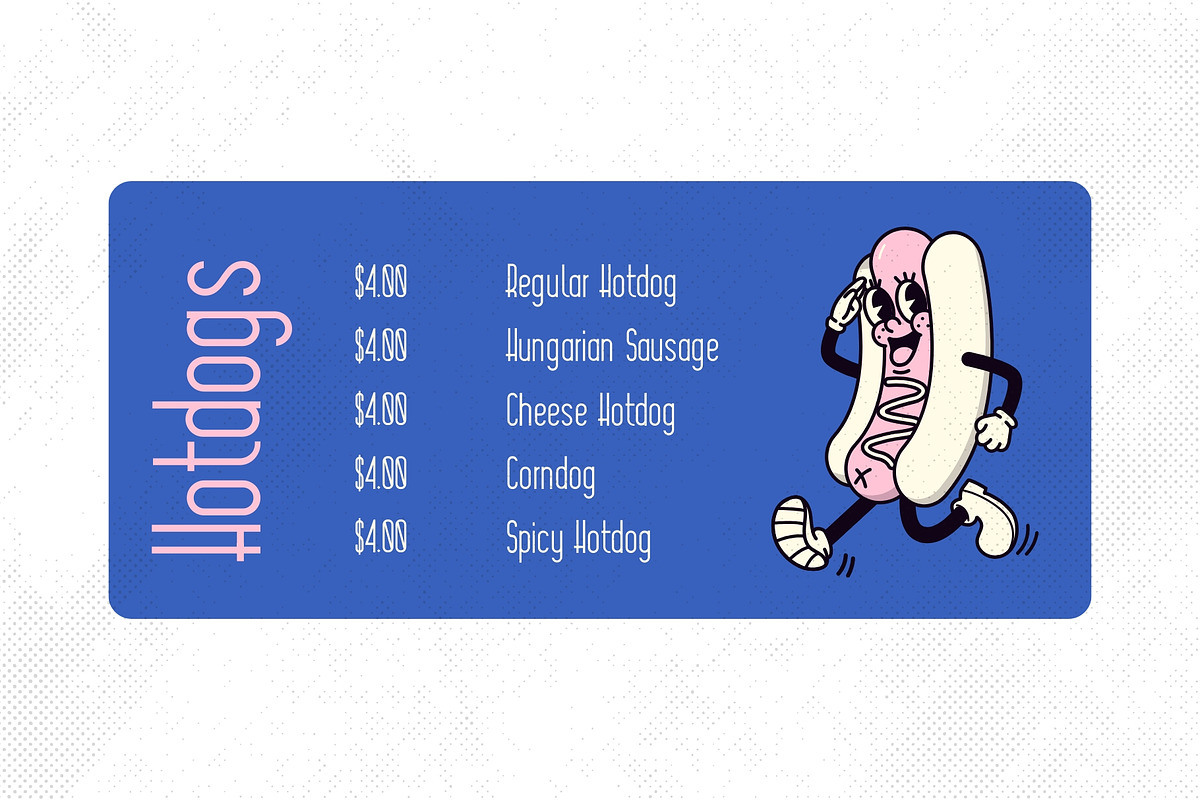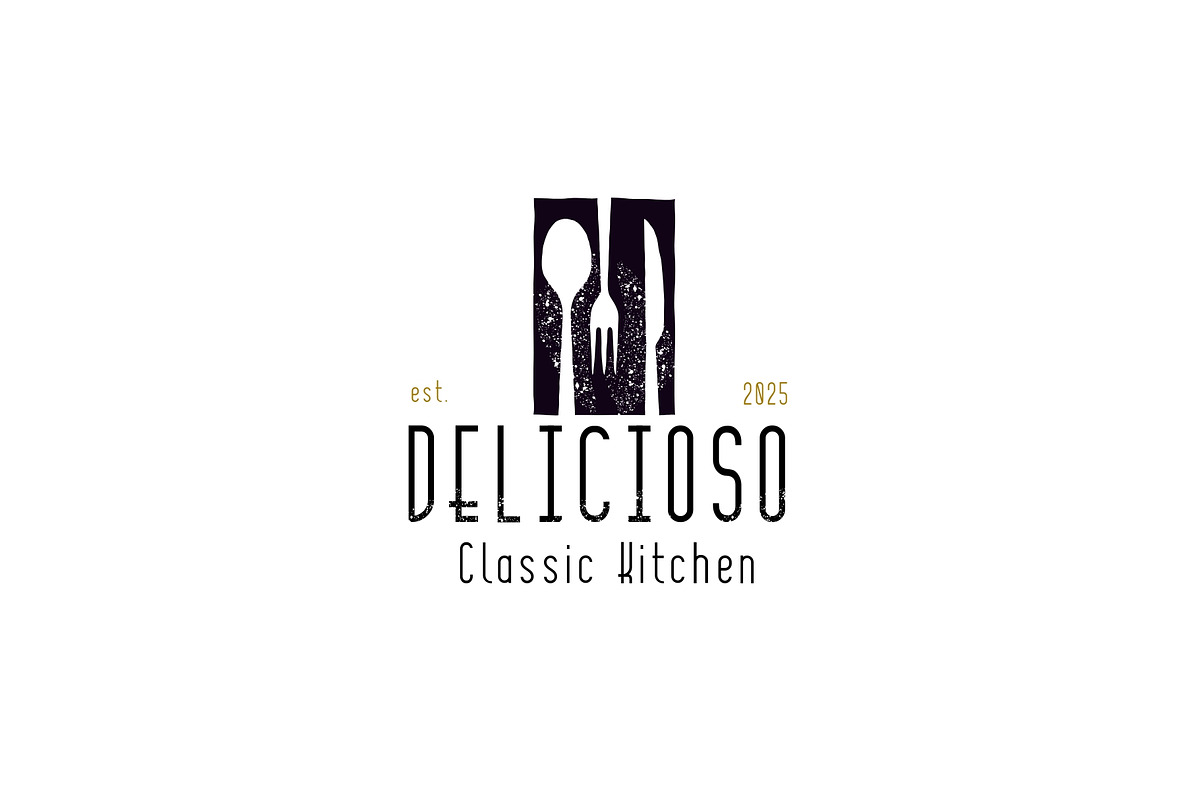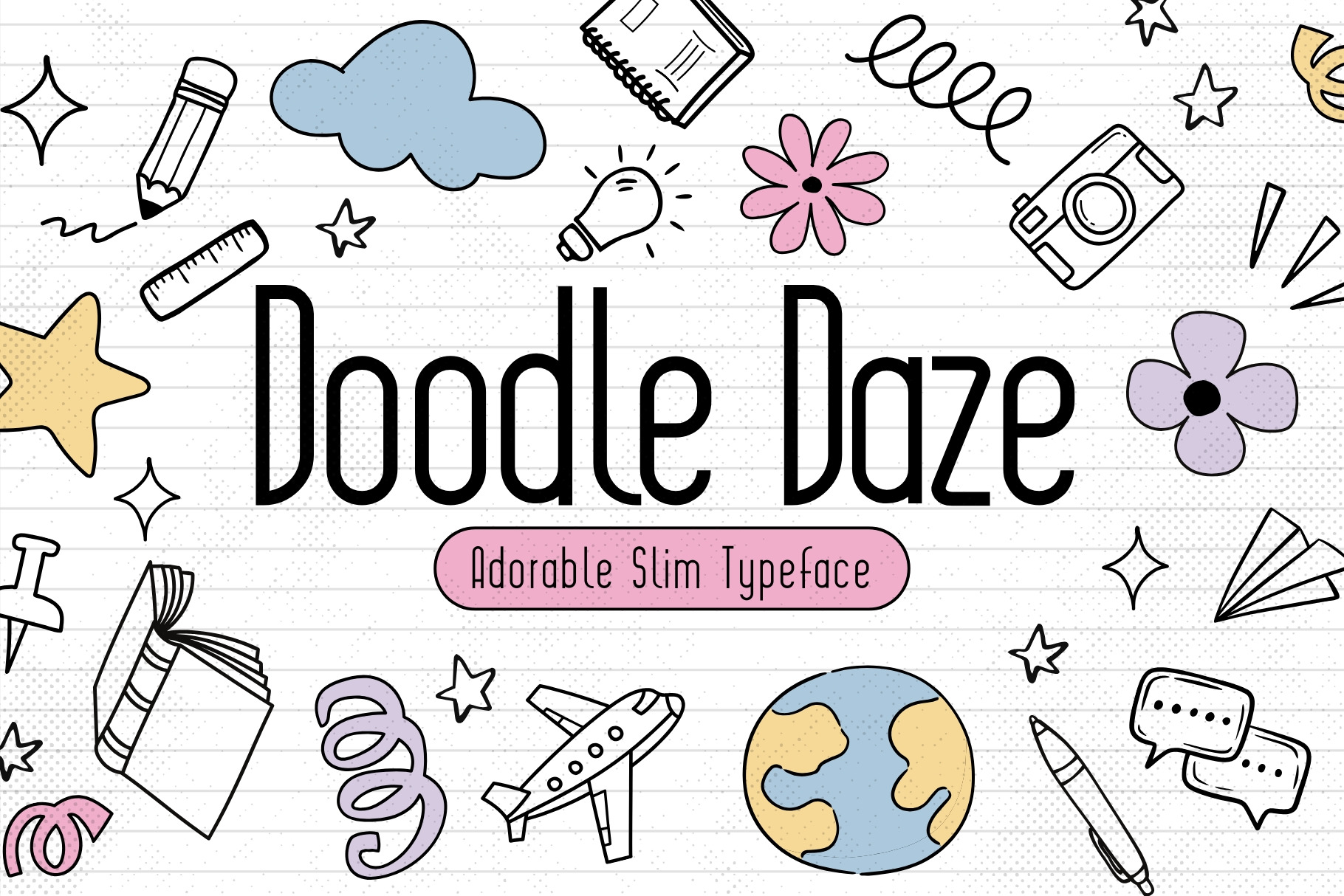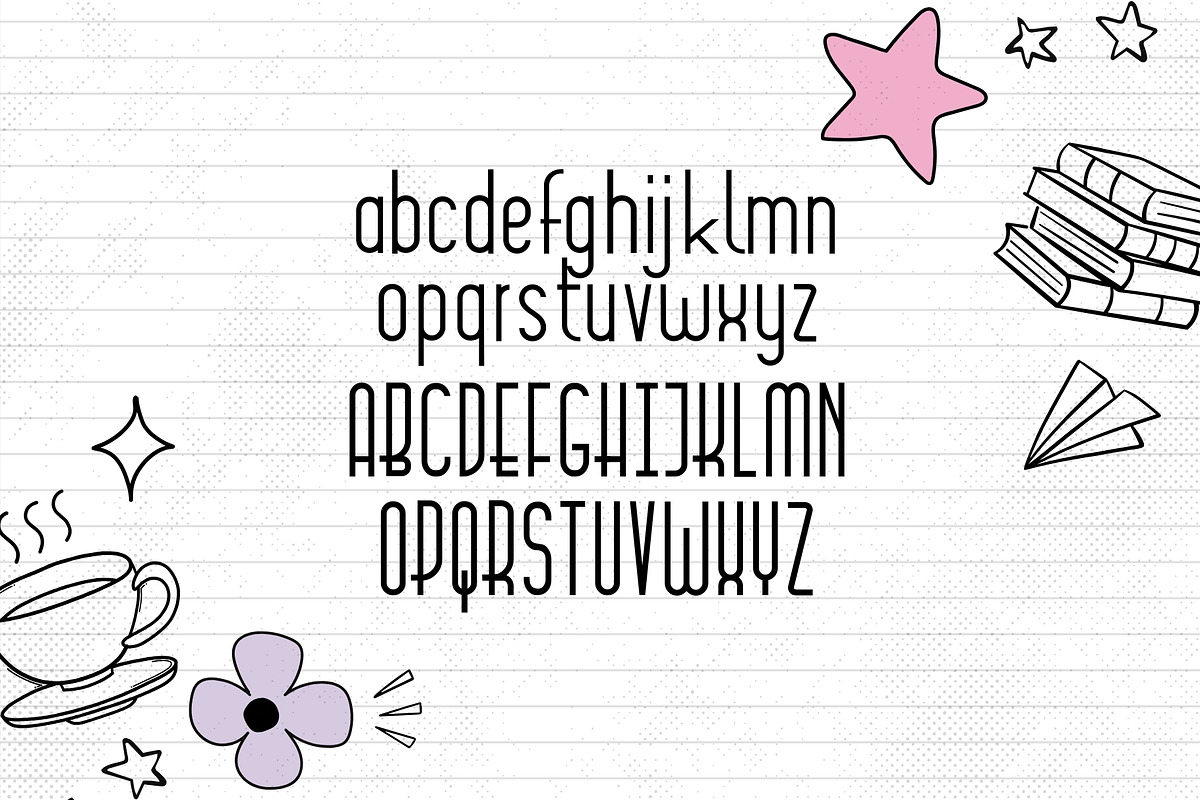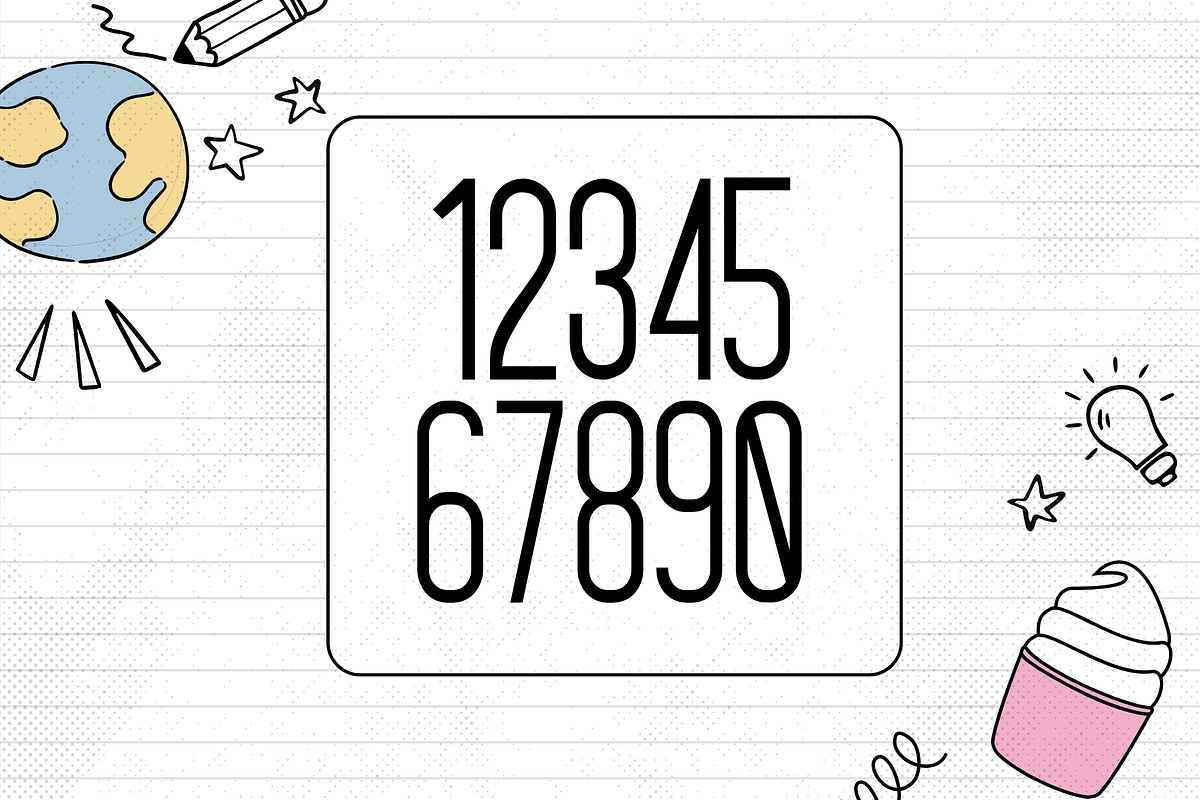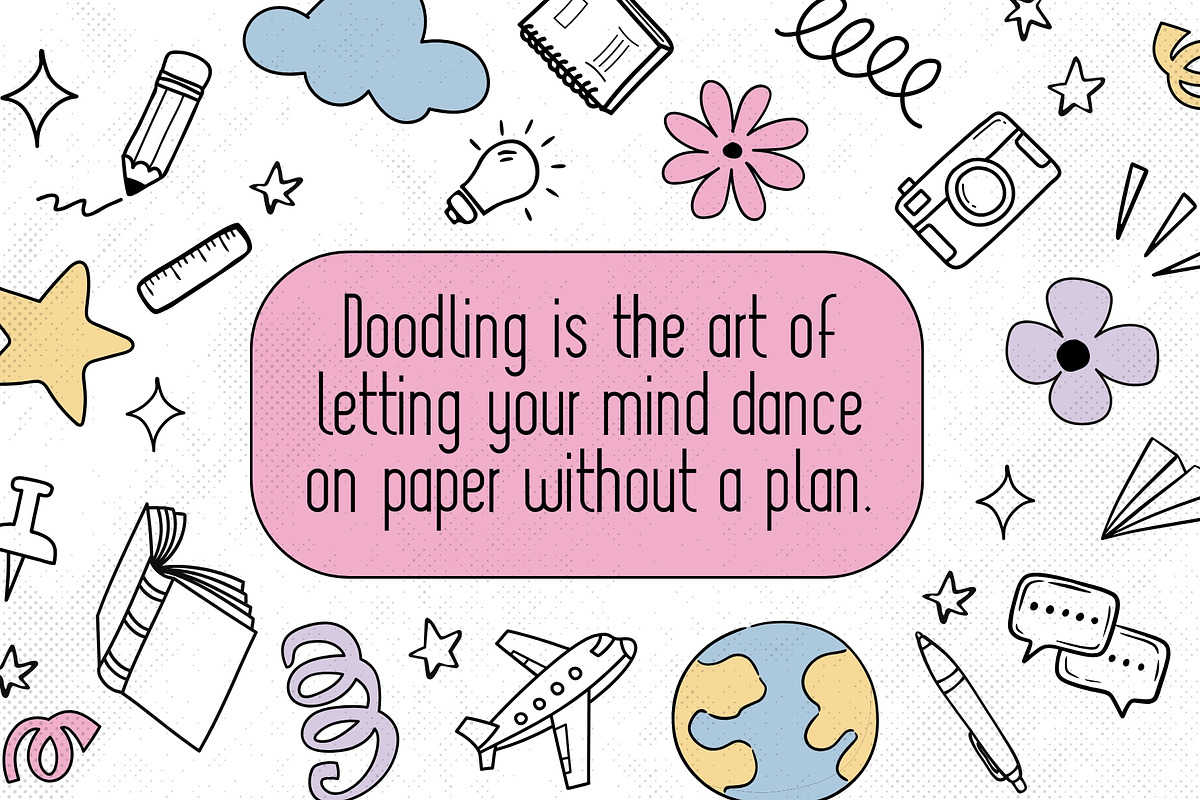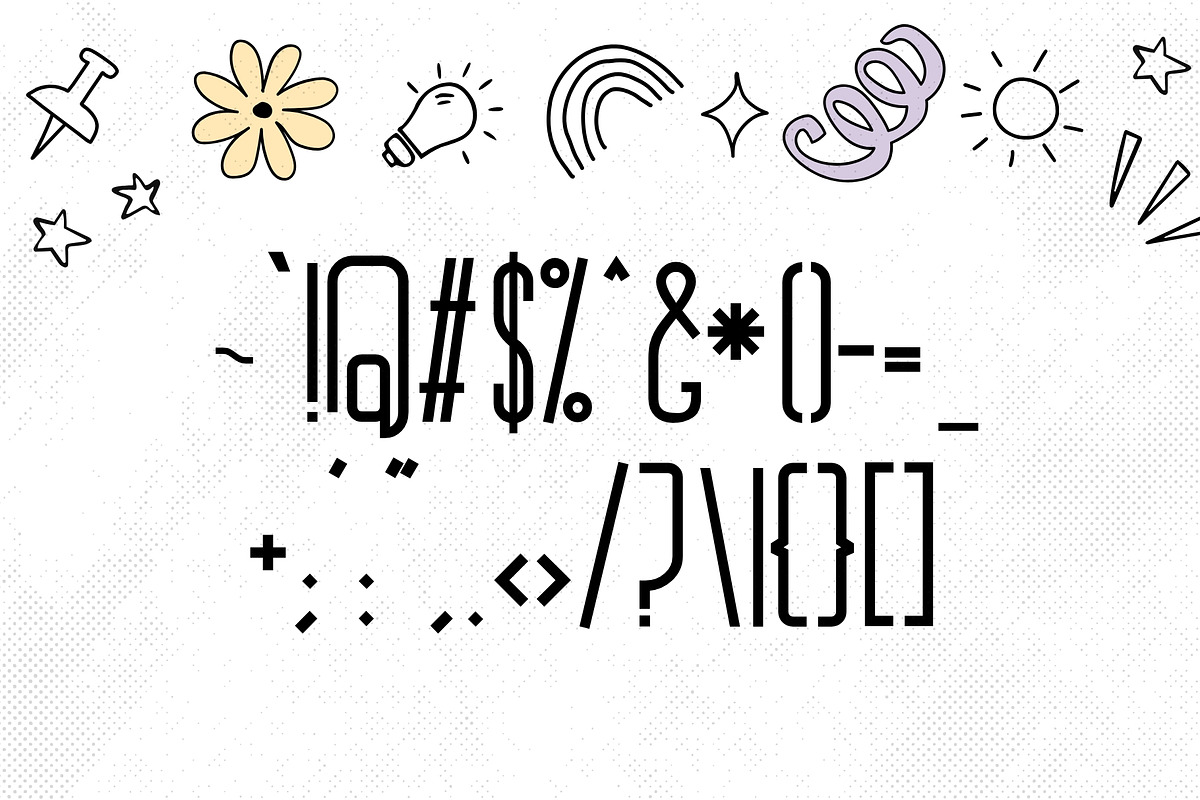
Doodle Daze - Adorable Slim Typeface
Doodle Daze is a sleek and stylish typeface inspired by the 1950s American diner aesthetic. With its tall, slim letterforms and effortless retro charm, this font brings a touch of nostalgia and playfulness to any design.
Perfect for menus, signage, logos, branding, posters, and mid-century-inspired projects, Doodle Daze captures the essence of vintage diners, soda fountains, and roadside cafés. Whether you're designing for a classic eatery, a retro brand, or a quirky project that needs a dash of old-school flair, this font is ready to serve up style with a side of fun!